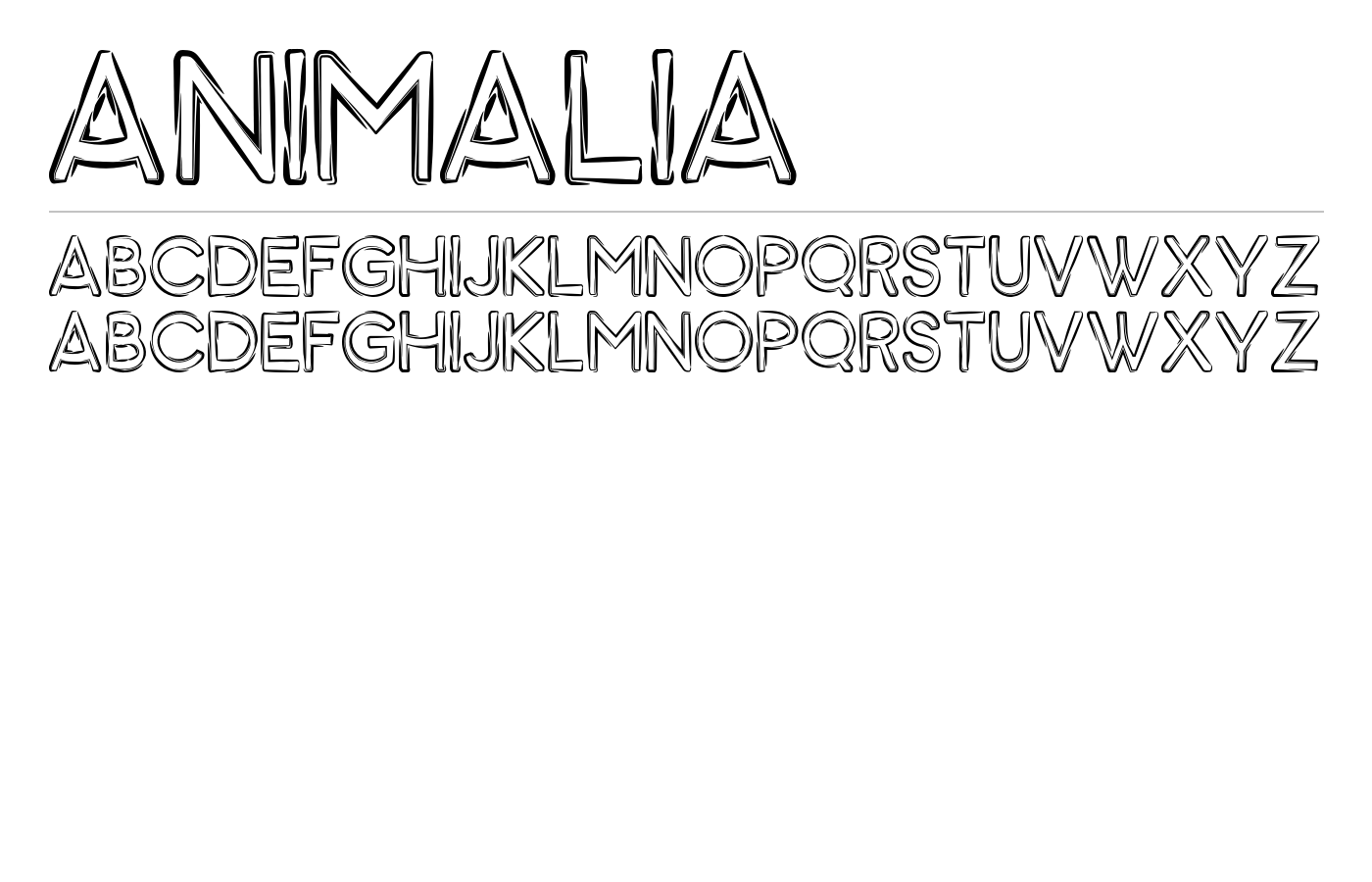
Animalia is a playful and artistic sans serif font with a hand-drawn, sketch-like appearance that gives it a lively and organic feel. Its irregular lines and slight weighting variations make it ideal for creative projects seeking a casual, whimsical, or nature-inspired vibe, perfect for branding, posters, and fun editorial uses where personality and uniqueness are key.
Animalia Font
About Animalia Font